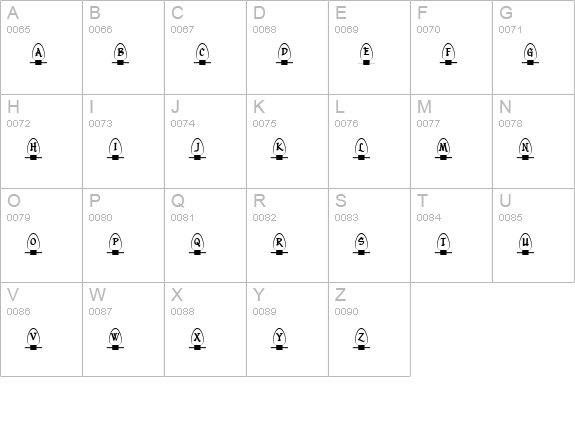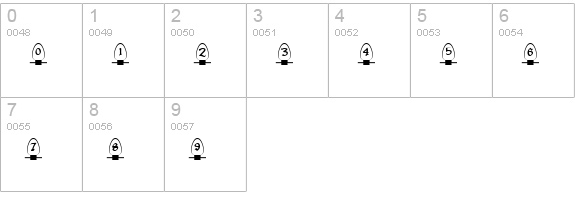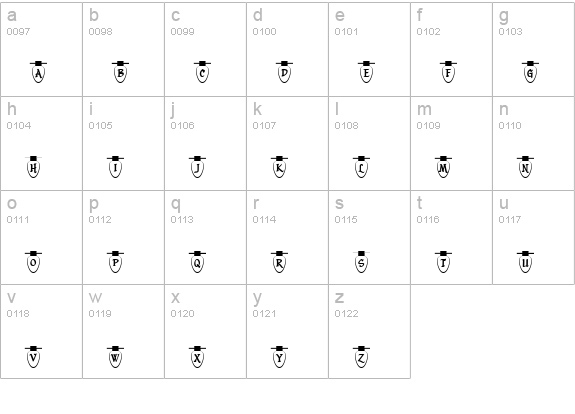
Christmas Lights Indoor Font Details
The Christmas Lights Indoor font is a whimsical and festive typeface that captures the spirit of the holiday season. Its charming design features twinkling lights intertwined with classic letterforms, creating a delightful visual representation of Christmas cheer. This font is perfect for adding a touch of magic to your holiday-themed projects, from greeting cards to party invitations. And the best part? The Christmas Lights Indoor font is completely free to download at FontsMarket.com! Don't miss out on this opportunity to bring a bit of holiday magic to your designs with this enchanting font. Let your creativity shine with the Christmas Lights Indoor font and spread the joy of the season with every letter you type.